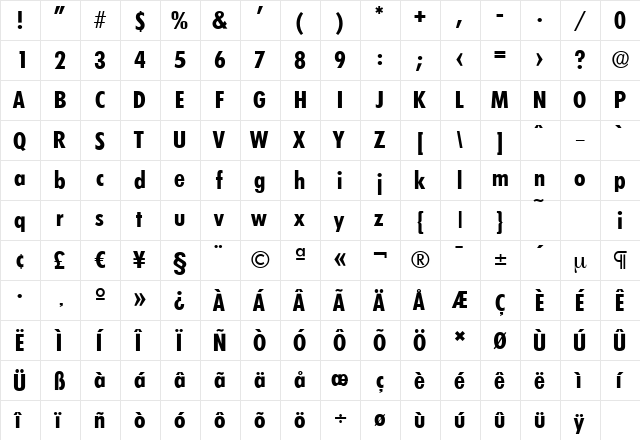
LimerickCdSerial Bold
Design Context for LimerickCdSerial Typeface
LimerickCdSerial takes a measured approach to typography — its balanced proportions and neutral character make it a reliable workhorse for both digital and print work. The heavy weight commands attention and anchors typographic hierarchies.